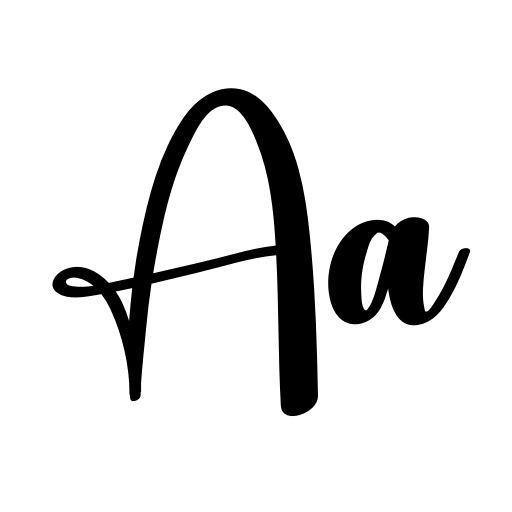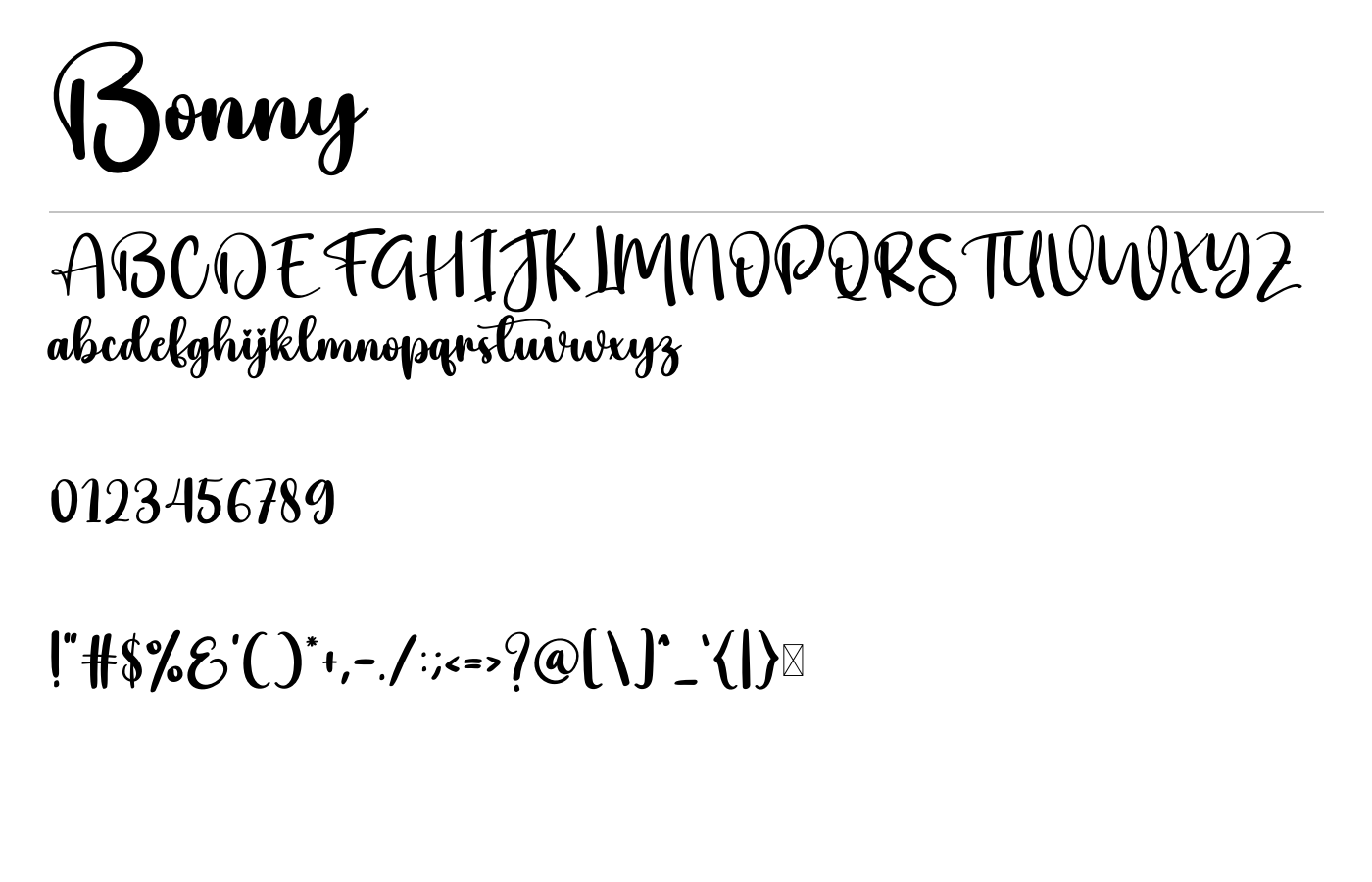
Bonny is a playful and elegant script font with a lively, hand-lettered feel. Its smooth curves, varying stroke thickness, and distinctive letterforms give it a friendly yet stylish personality, making it ideal for creative branding, invitations, and eye-catching headlines. This font works best in designs that need a personal touch with a modern, artistic flair.
Bonny Font
About Bonny Font